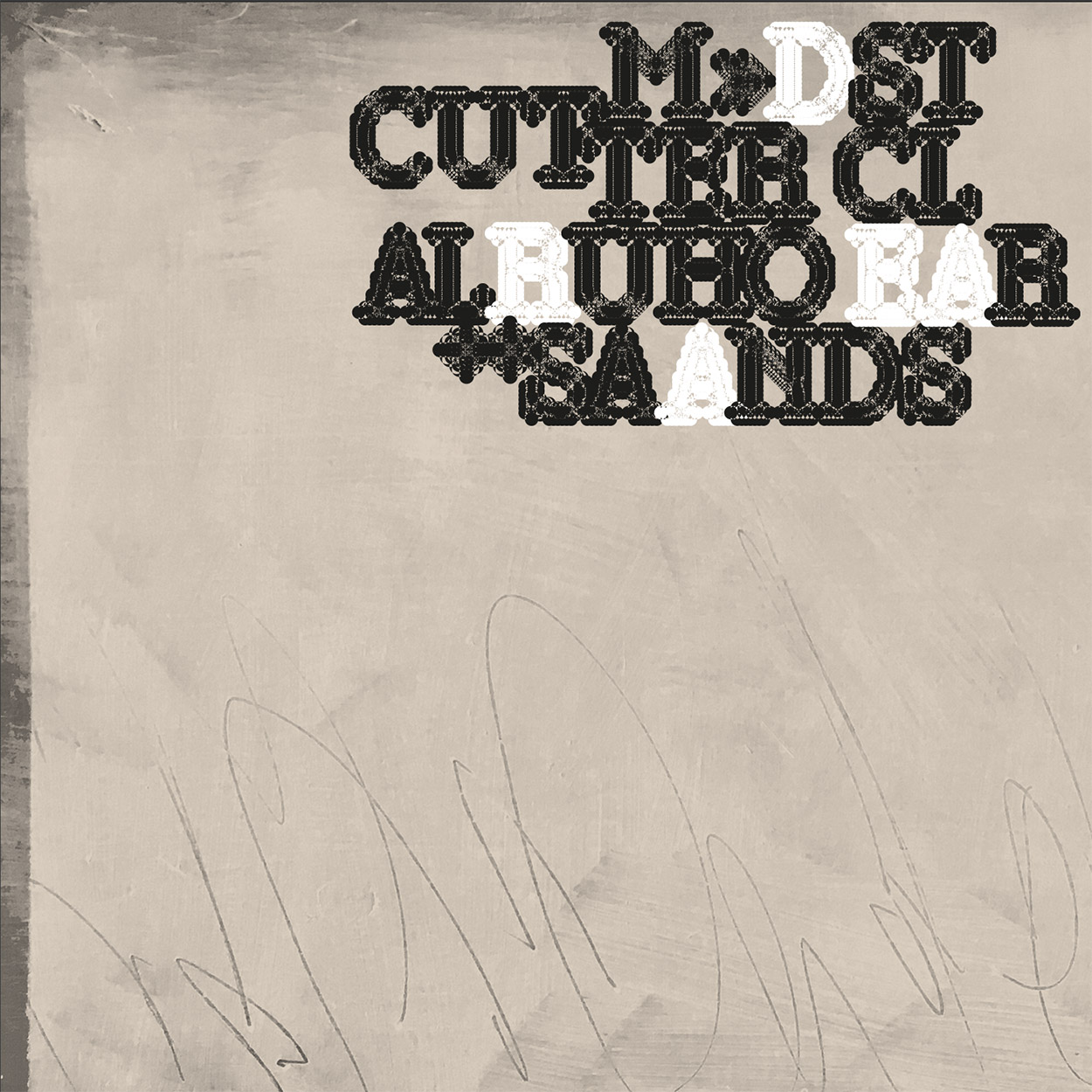
Flor de ruina
Flor de Ruina is born from the life that emerges in the fracture, in the fissure. Its variants are a conceptual process that emulates the life cycle of a flower, therefore each glyph germinates, blooms, withers, and finally fissures. Designed as a tool to make the words visible, that unsettles, questioning the automatic reading so prevalent in typographic tradition by proposing a system that slows down reading, resting on its form and its meaning. It finds beauty in discomfort, it's designed to interrupt.
Artefacto tipográfico nacido desde la fractura. Cada glifo brota en grieta en ruina. Herramienta para visibilizar la palabra que incomoda. Rechaza ser domesticada por la lectura automática. Diseñada para interrumpir.